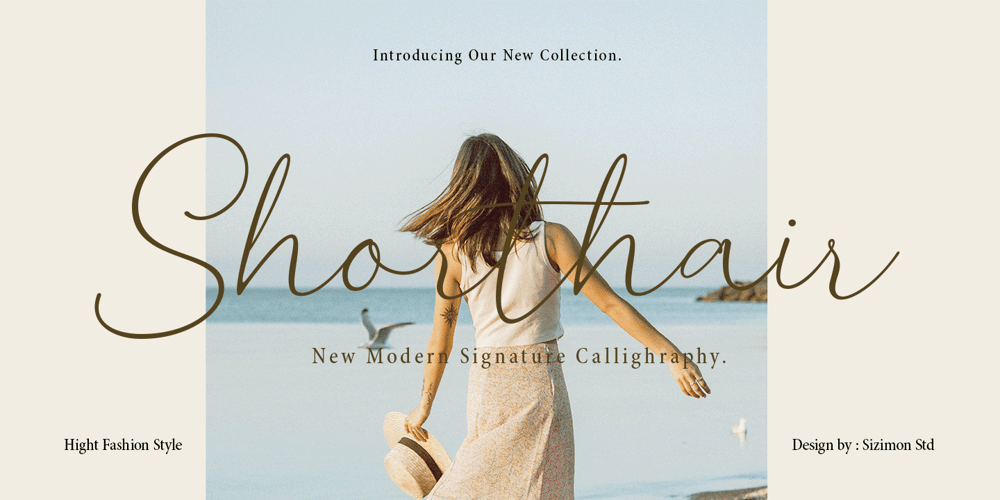
Shorthair
Shorthair font
Shorthair Font Family was designed by Faisal Tanjung and published by sizimon. Shorthair contains 1 styles and family package options. Introducing our product Shorthair Signature! signature with which you can achieve a Cursive lettering feeling. It is slender, feminine and friendly. Shorthair Signature is perfect for fashion, e-commerce brands, trend blogs, or any business that wants to appear classy and chic.Shorthair Signature Includes: Uppercase, lowercase, numeral, punctuation & Symbol Stylistic alternates Stylistic Set01 – Stylistic Set02 Ligatures PUA Encoded Characters Fully accessible without additional design software. If you have any question please do not hesitate to contact me : info@sizimon.com. Thank You!